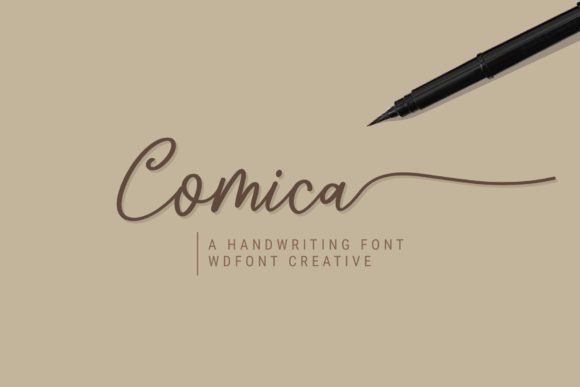
The Perfect Blend of Elegance and Authenticity
As designers, we’ve all been there – staring at a blank page, trying to find the perfect words to convey our creative vision. And then, it hits us – the perfect font, the perfect script, the perfect style that brings our ideas to life. For many of us, that perfect font is the Comica Script Font, a lovely and elegant handwritten font that exudes an undeniably authentic charm.
With its bold swashes and fluid lines, the Comica Script Font is more than just a font – it’s an experience. It’s a way to add a touch of sophistication and whimsy to your designs, making them stand out from the crowd. Whether you’re a seasoned designer or just starting out, the Comica Script Font is a valuable addition to your toolkit, offering endless possibilities for creativity and self-expression.
Comica Script Font Key Features
- Font Family: Comica Script Font is a beautiful, handwritten font with a unique and elegant style, perfect for creating a sense of sophistication and refinement.
- Character Set: The font includes a wide range of characters, including uppercase and lowercase letters, numbers, punctuation marks, and special characters, making it suitable for various types of documents and designs.
- Size and Resolution: Comica Script Font is available in a range of sizes, from 12pt to 72pt, and is optimized for high-resolution displays, ensuring that it looks sharp and clear on screens and in print.
- Unique Characteristics: Comica Script Font features a unique, handwritten style with varying line widths, irregular letterforms, and a sense of movement, making it stand out from more traditional fonts.
Comica Script Font Review
I recently had the chance to work with the Comica Script font, and I must say it’s a lovely addition to any designer’s toolkit. ✨
- Unique, elegant style that adds a touch of sophistication to any design.
- Wide range of applications, from branding and advertising to editorial and publishing.
- Easy to read, even in smaller font sizes, making it perfect for body text.
- Supports multiple languages, including English, Spanish, French, and more.
- ⚠️ Limited font weight options, which may limit its use in certain design contexts.
- ⚠️ Some users may find the font too ornate or distracting, depending on the design style.
- ⚠️ May not be the best choice for display headings, as it can get lost in larger font sizes.
The Comica Script font is a solid choice for designers looking for a elegant, easy-to-read script font. While it has some limitations, its unique style and wide range of applications make it a valuable addition to any designer’s toolkit.
Comica Script Font is ideal for adding a touch of whimsy and elegance to your designs, making it perfect for wedding invitations, baby shower decorations, and more.
Comica Script Font is perfect for creating custom logos, branding materials, and promotional items.
Comica Script Font is ideal for adding a touch of sophistication and elegance to your presentations and documents.